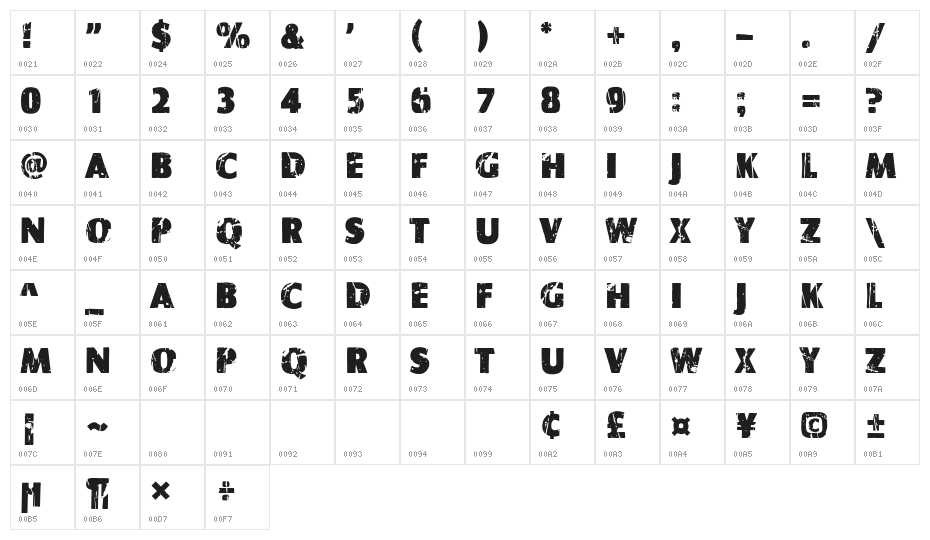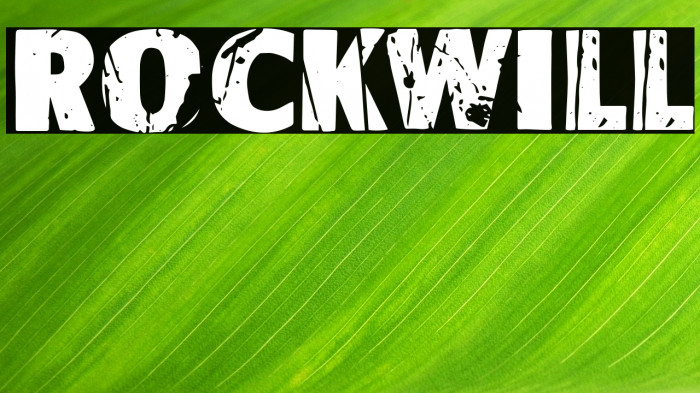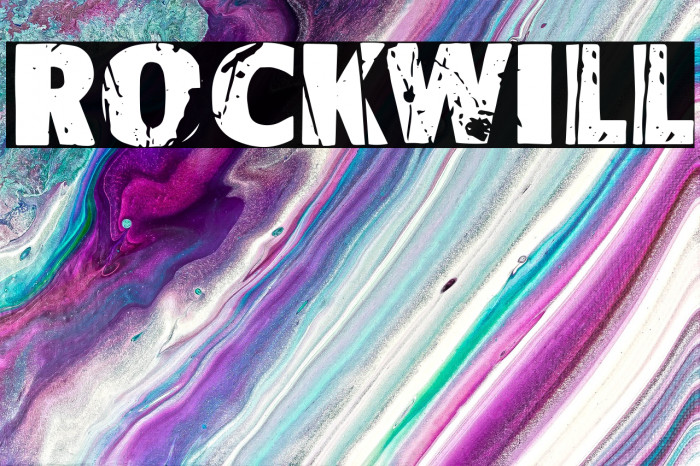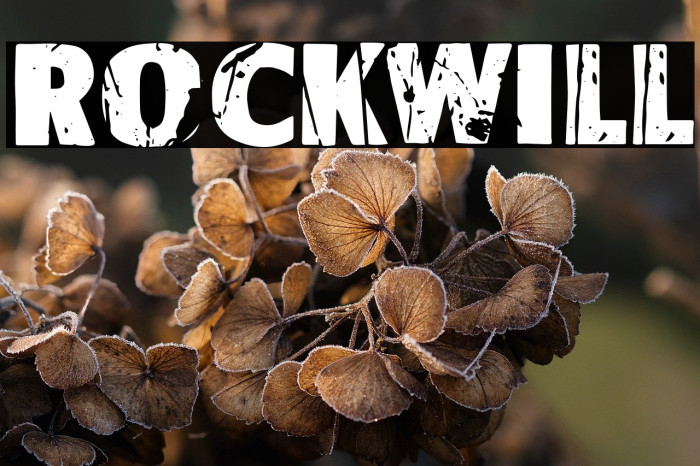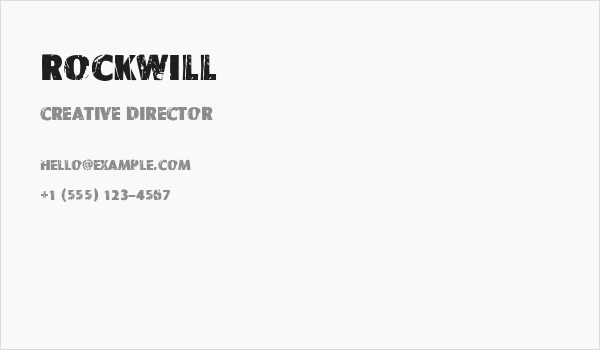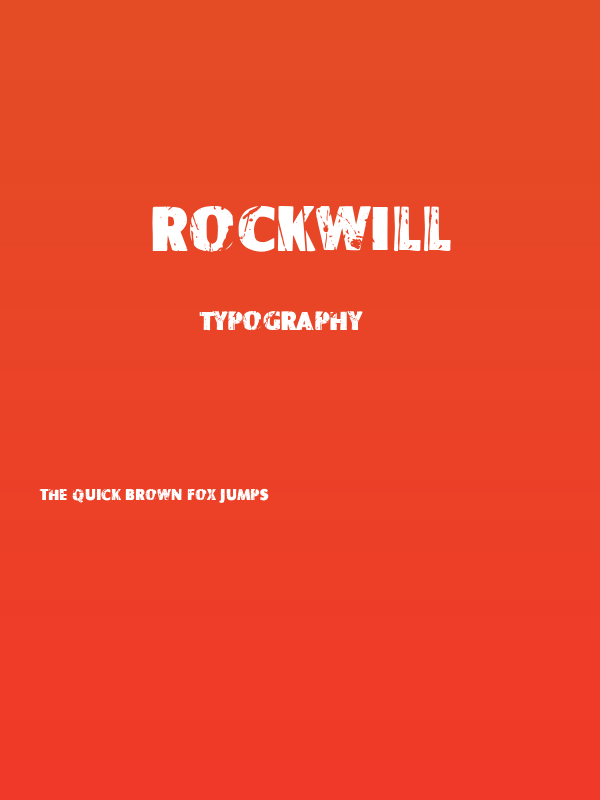
Rockwill Font
Rockwill Description
This font features a bold and distressed style, characterized by its rough, textured appearance that mimics a worn or eroded surface. The uppercase and lowercase letters, as well as numbers and special characters, all share this rugged aesthetic, making it ideal for projects that require a grunge or industrial look. The font's boldness ensures high visibility, while the distressed elements add a unique, edgy flair. Its design is perfect for creating impactful headlines, posters, or branding materials that aim to convey strength and resilience.
| Use Case | Headlines, Posters, Branding |
| Proposed Projects | Ideal for posters, album covers, branding, and any design needing a grunge or industrial vibe. |